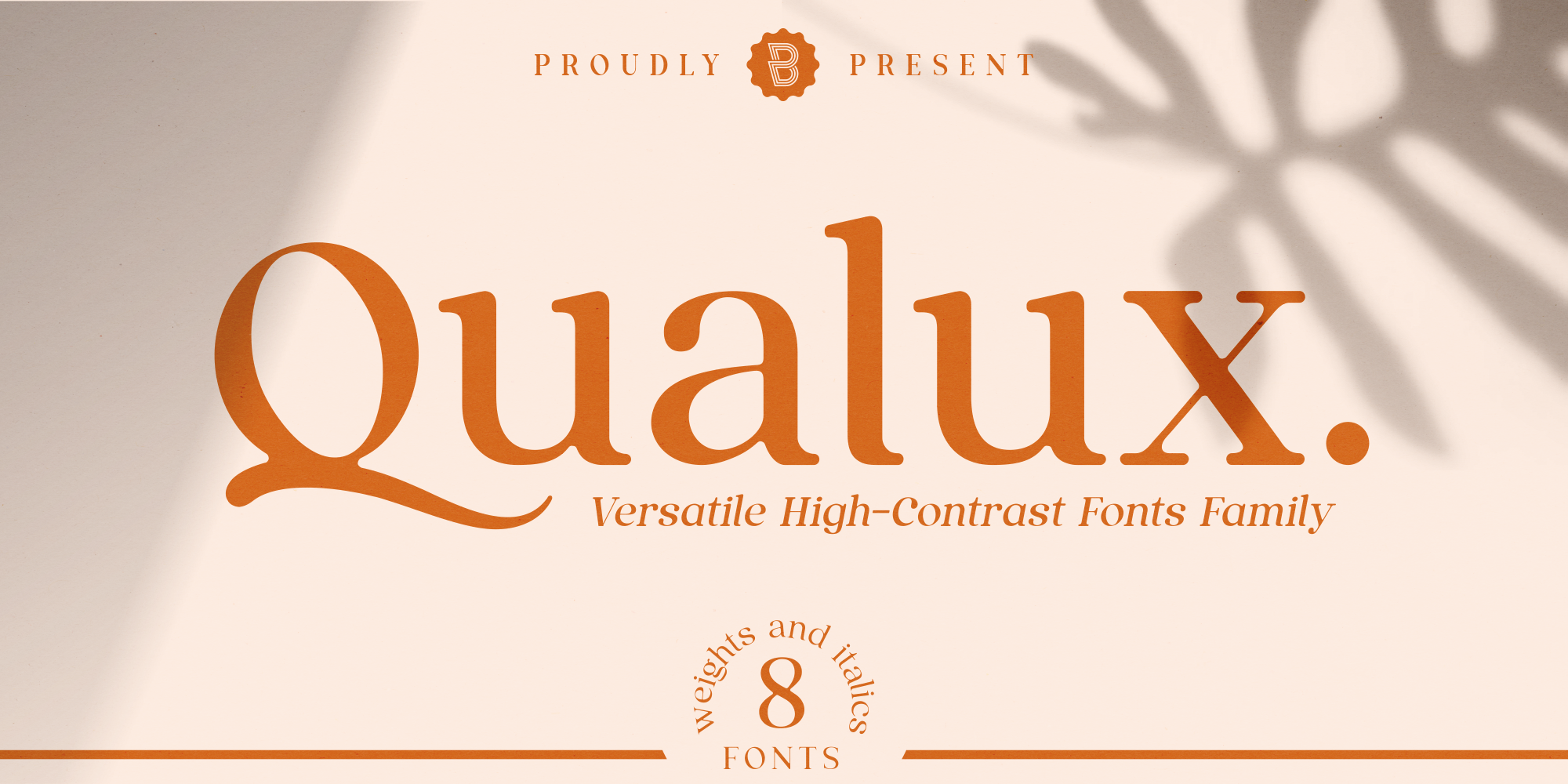
Qualux Font is a sleek and exceptionally sophisticated typeface, perfectly suited for projects that demand a premium aesthetic, modern clarity, and an undeniable sense of high quality. Imagine it gracing the luxurious branding for high-tech products or services, adding a refined and innovative touch to corporate annual reports, or providing a captivating visual for cutting-edge digital interfaces. It's also an excellent choice for crafting impactful headlines in exclusive magazines, designing unique invitations for high-profile events, or bringing a polished, authoritative feel to editorial layouts and upscale digital platforms. If you're looking to convey innovation, elegance, and an undeniable sense of superior craftsmanship, Qualux Font is an outstanding selection.
What makes Qualux Font so exciting? It’s its meticulous design, balancing geometric precision with subtle, refined details, which allows it to be incredibly adaptable for a wide array of applications where both aesthetic appeal and supreme functional clarity are paramount. This font boasts expertly crafted letterforms and optimized spacing that ensure exceptional readability across various sizes and mediums, from crisp digital displays to high-resolution printed materials. Its clean lines, sophisticated character, and professional appearance allow it to integrate seamlessly into diverse design ecosystems, supporting content without distraction while conveying a forward-thinking and genuinely luxurious sensibility. Designers will appreciate its understated elegance and its ability to lend an air of sophistication and modernity to any project, making it a highly dependable choice for achieving a polished and distinguished outcome.
The Qualux Font family is typically designed with a comprehensive range of weights and styles to provide maximum flexibility for designers, often boasting an extensive character set suitable for global applications. You can generally expect to find numerous variations such as Thin, Light, Regular, Medium, SemiBold, Bold, and Black, accompanied by matching italic versions for each. This extensive family ensures that Qualux Font can be used to create sophisticated typographic hierarchies, maintain consistent branding across diverse mediums, and offer flexible design solutions for both print and digital environments. Discover the unwavering clarity and contemporary style of Qualux Font Free Download for your next design endeavor.